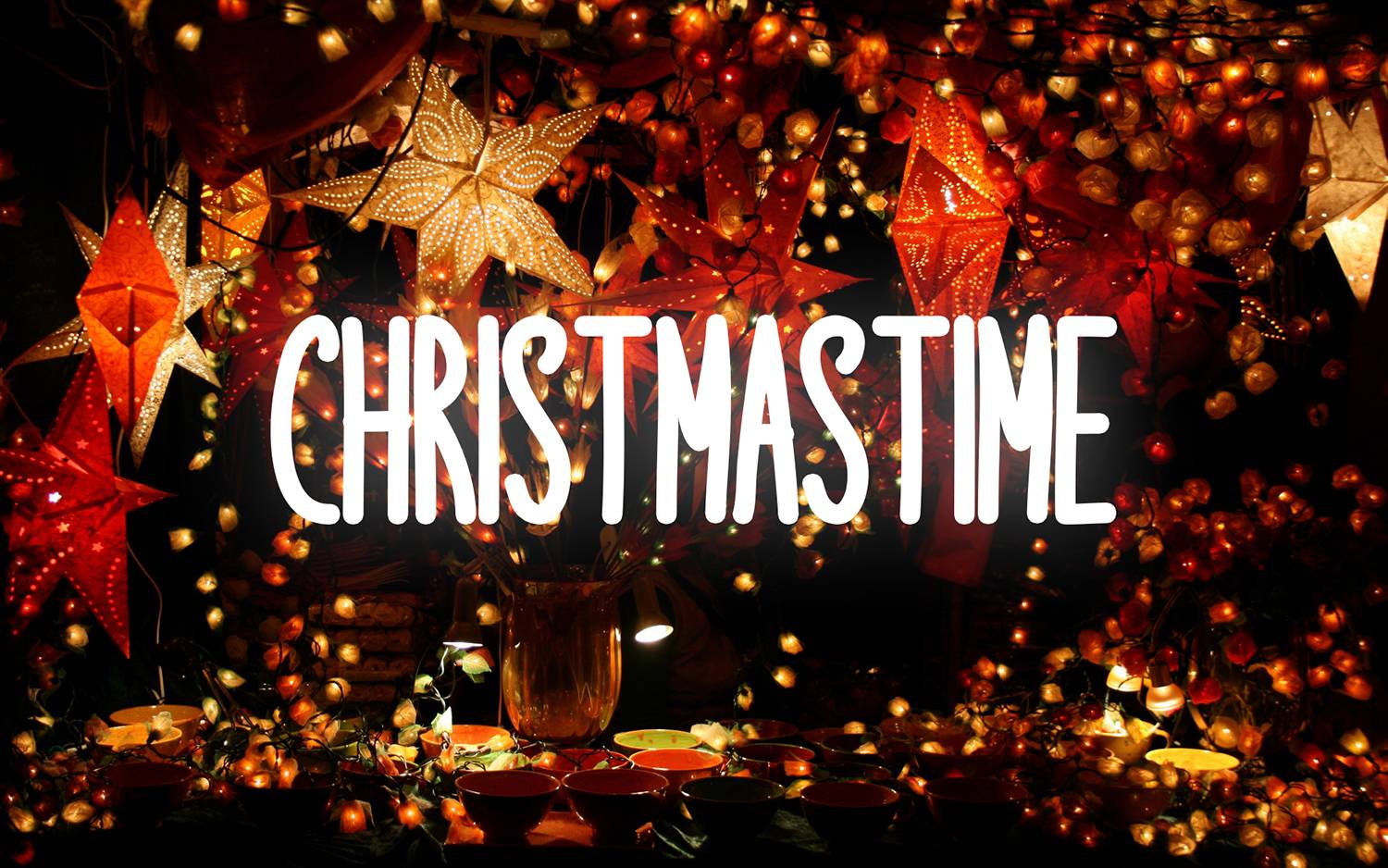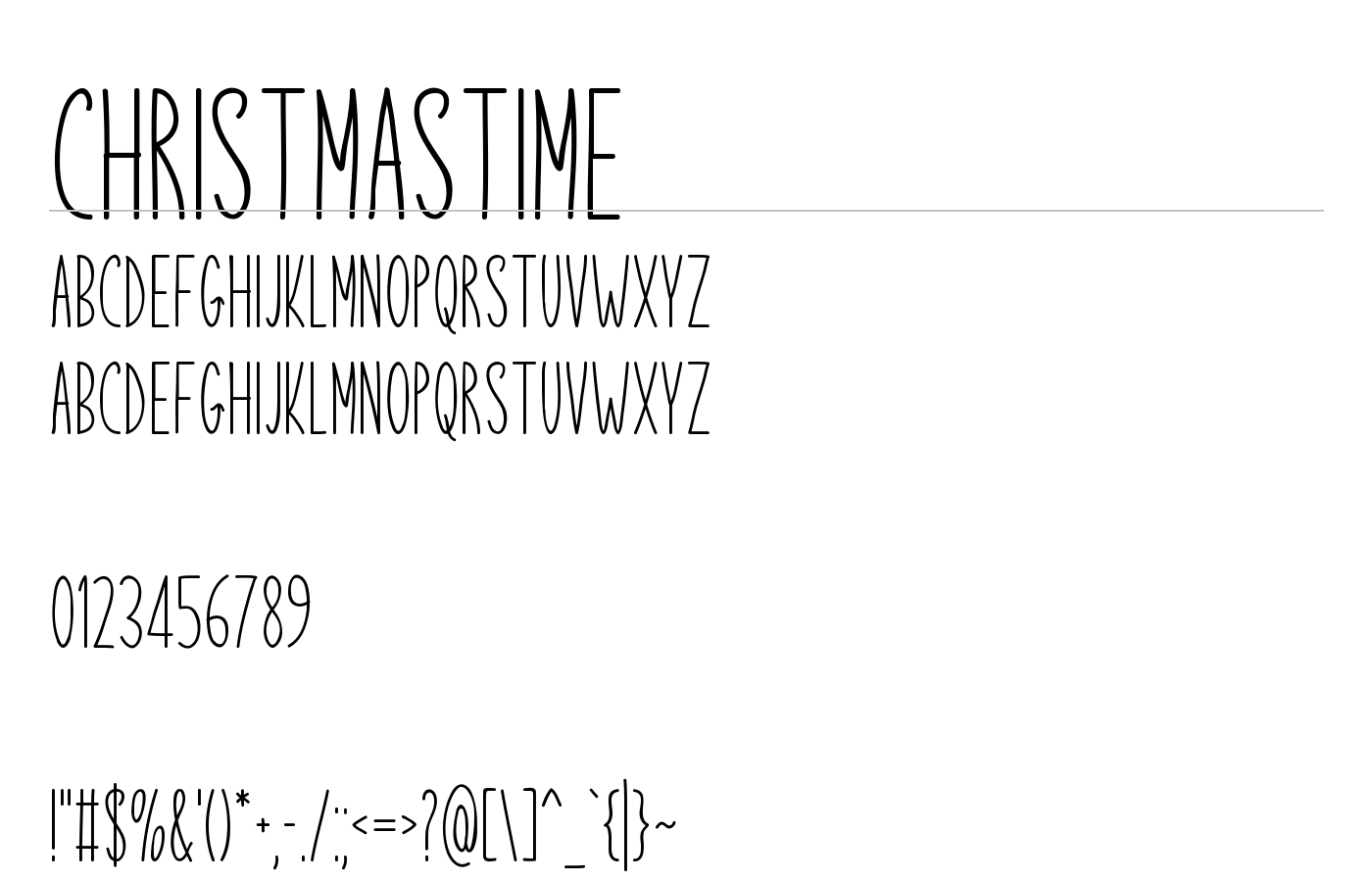
Christmastime is a tall, narrow sans serif font with a playful and handmade feel, featuring thin, uneven strokes that evoke a casual, whimsical style. Its condensed letterforms and quirky shapes make it ideal for festive or lighthearted designs, perfect for holiday cards, party invitations, and creative branding that aims to convey warmth and charm. This font works well where a personal, friendly touch is desired over formal elegance or heavy impact.
Christmastime Font
About Christmastime Font